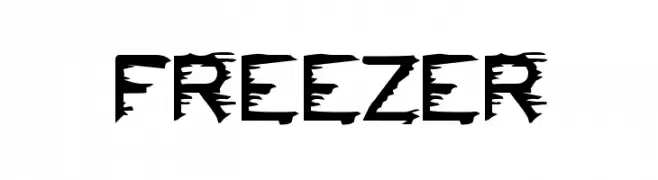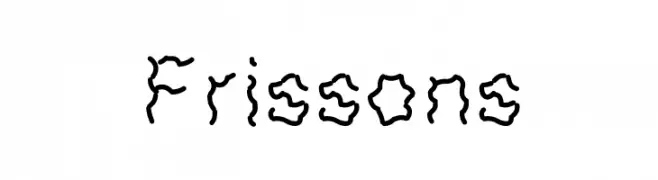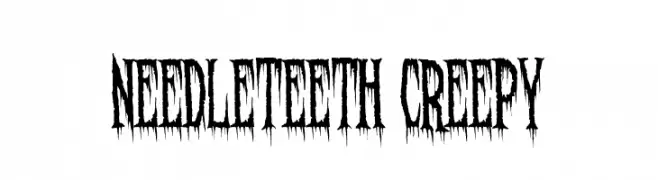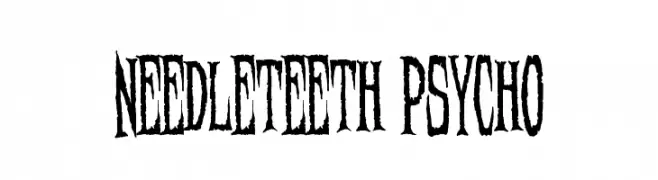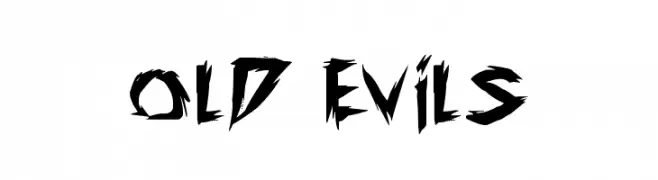
( Fonts by Sinister Visions - Chad Savage - www.sinisterfonts.com )
A sharp, jagged font with an intense, dramatic style.
( Fonts by Sinister Visions - Chad Savage - www.sinisterfonts.com )
A creepy, jagged font with a horror-inspired, dripping aesthetic.
( Font by Jonathan Harris - www.tattoowoo.com )
A decorative, alien-themed font with jagged, organic forms and a mysterious aesthetic.
( fontm.com/author/weknow/ )
A bold, jagged font with an icy, dynamic appearance.
( Fonts by www.sonntag.nl )
A decorative, gear-like font with intricate, jagged edges.
( Fonts by Press Gang Studios - Andeh Pinkard - www.pressgang-studios.com )
A bold, jagged font with sharp, angular edges and a dynamic, aggressive style.
( Fonts by Press Gang Studios - Andeh Pinkard - www.pressgang-studios.com )
A bold, jagged, hand-drawn font with an edgy and energetic style.
( Fonts by Press Gang Studios - Andeh Pinkard - www.pressgang-studios.com )
A bold, jagged, and distressed decorative font with a chaotic and intense style.
( fontm.com/author/weknow/ )
A bold, edgy font with sharp, jagged edges resembling claw marks.